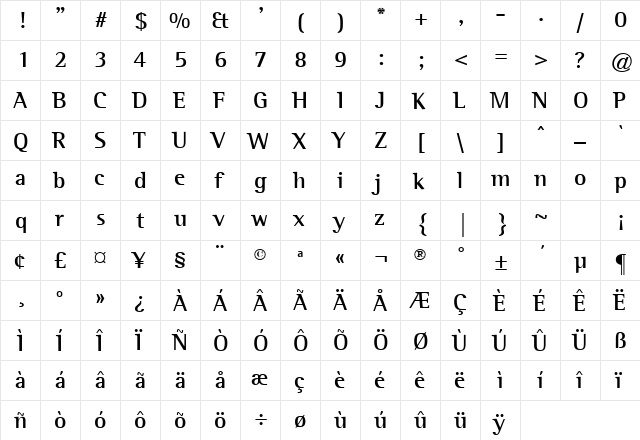
ATRotisSemiSerif-Bold Regular
Design Context for ATRotisSemiSerif-Bold Typeface
ATRotisSemiSerif-Bold brings classic typographic sensibility to the table — its serifs and measured letterforms reflect centuries of print heritage. Its bold stroke weight gives it real presence on the page.
Pro Tip: Use ATRotisSemiSerif-Bold for editorial body copy and considered headline work. Pair with a neutral sans for UI elements or captions to create a classic hierarchy.